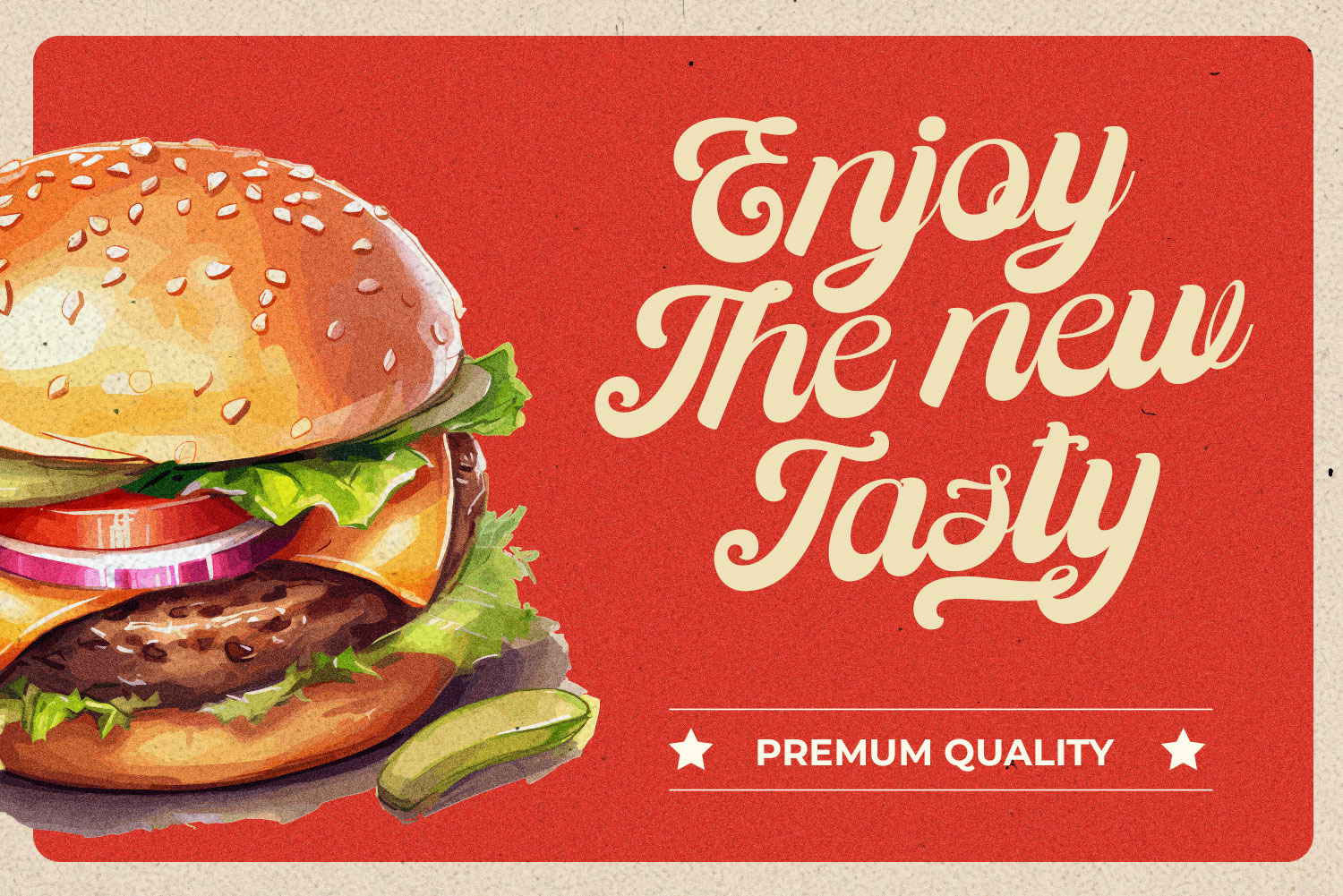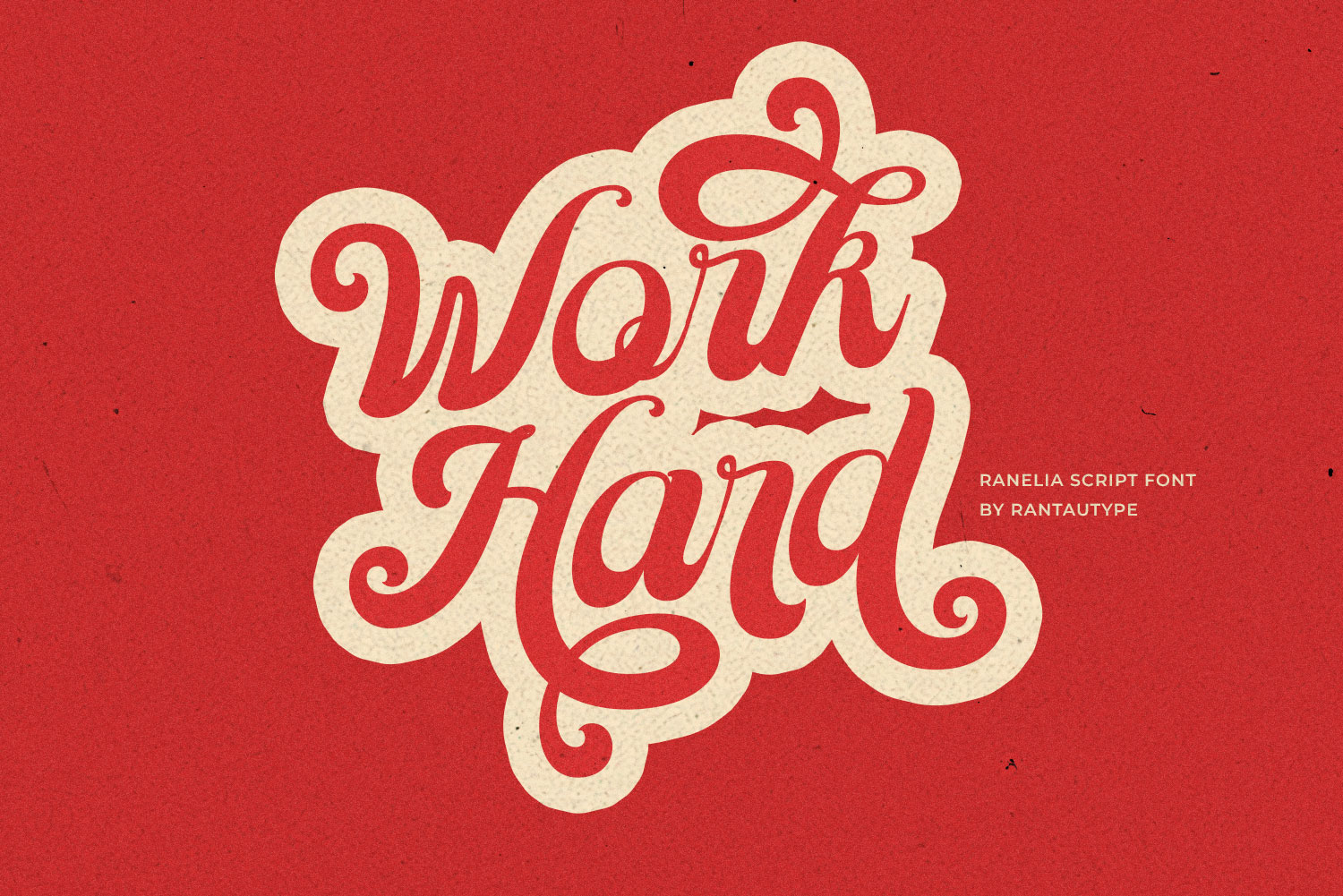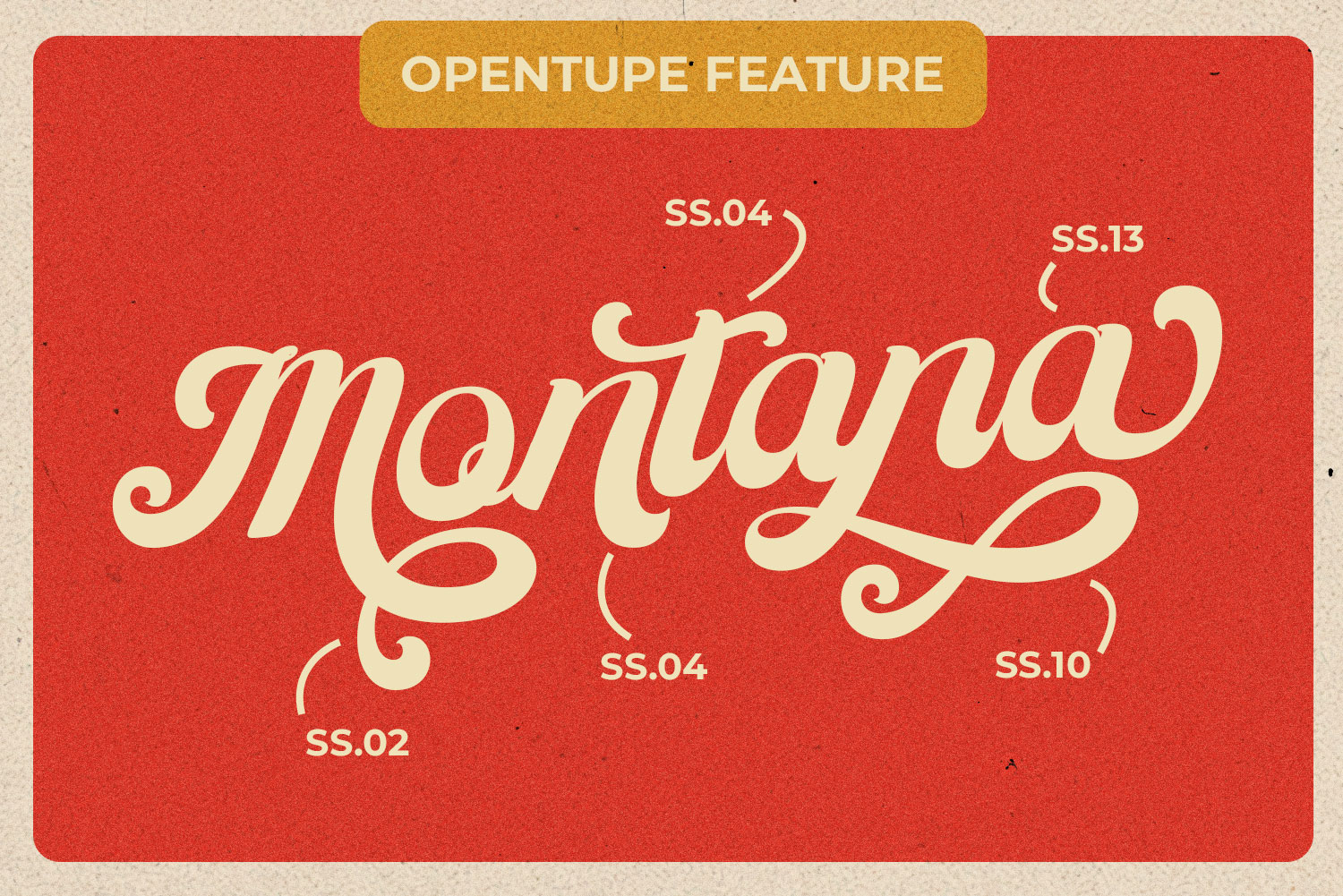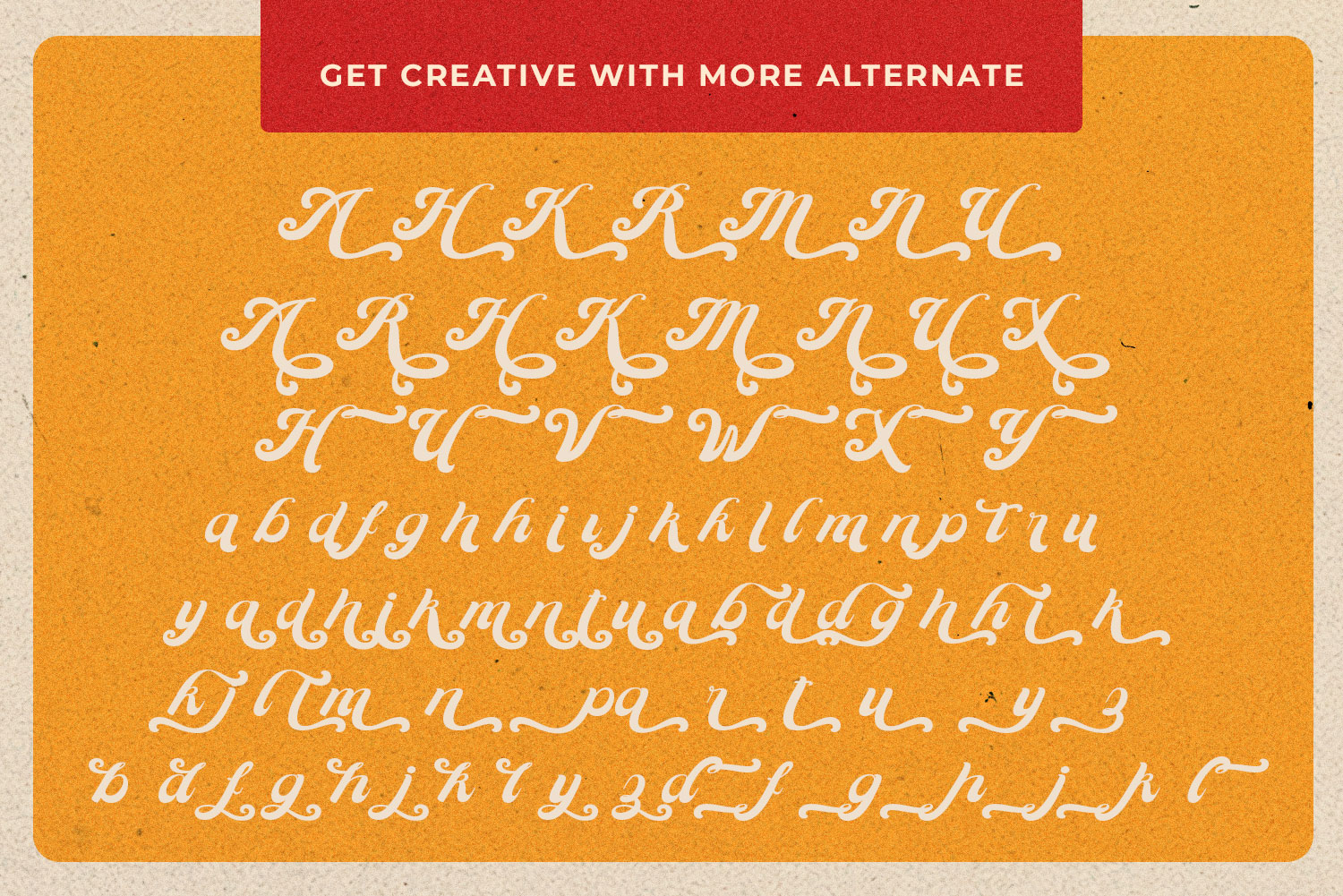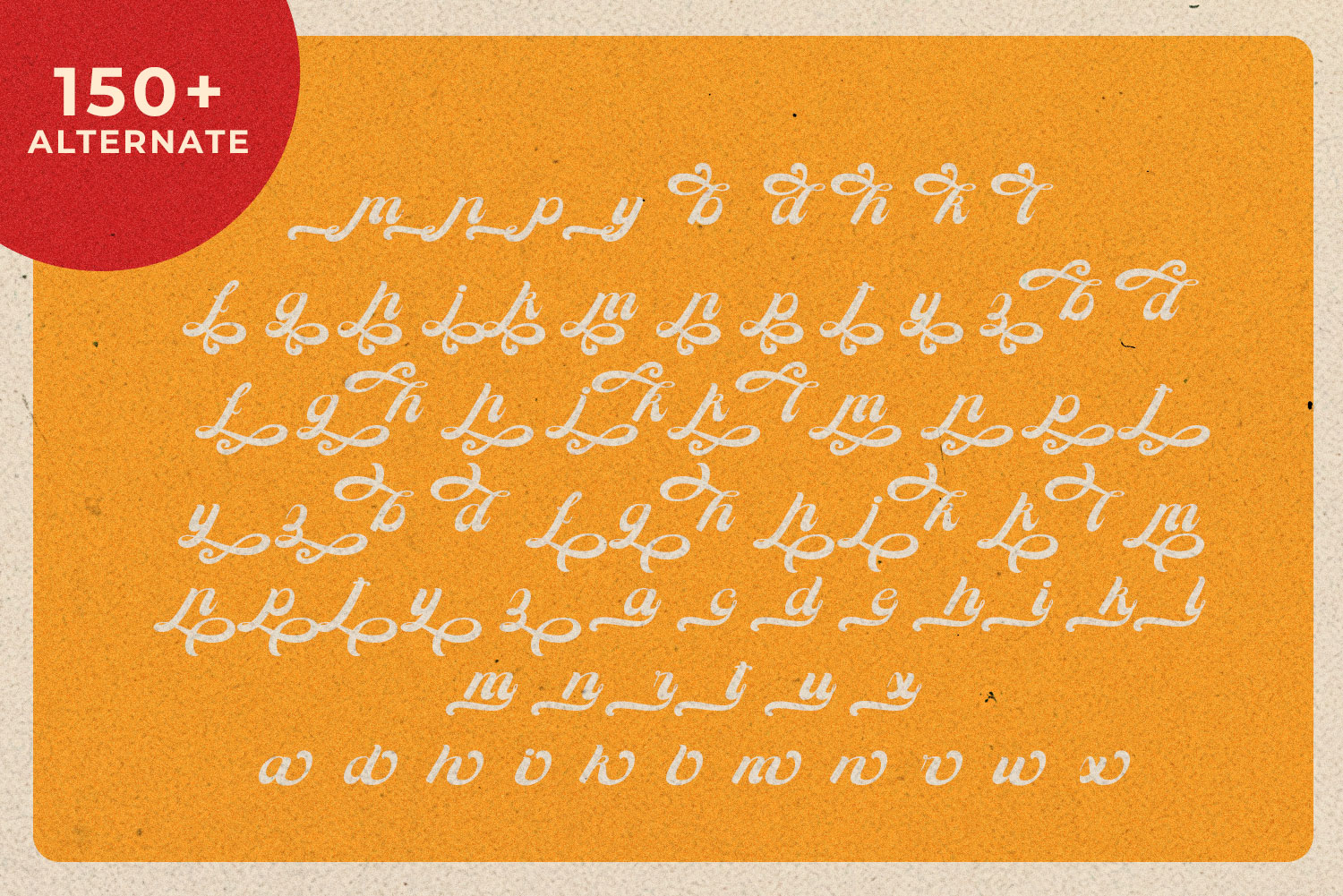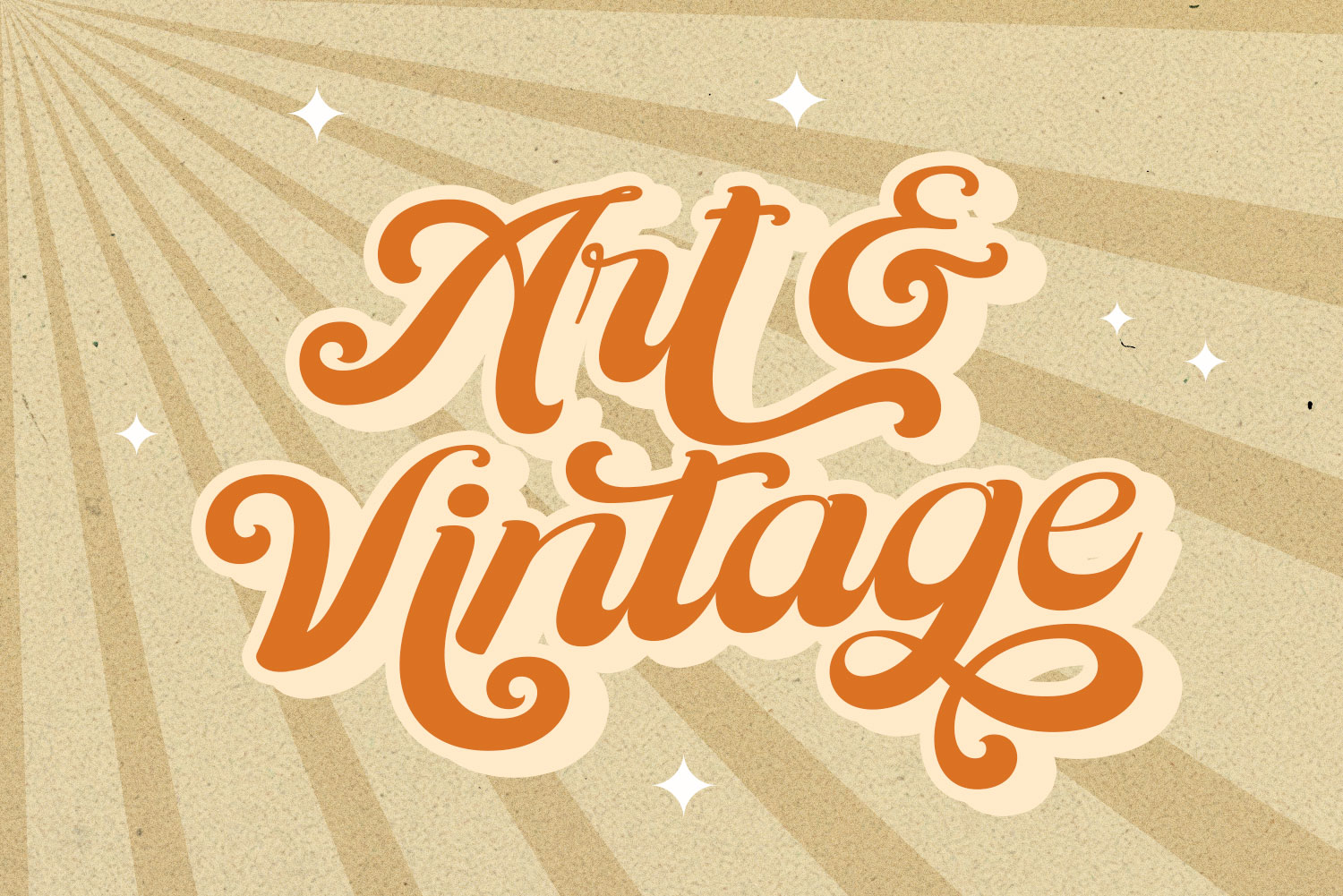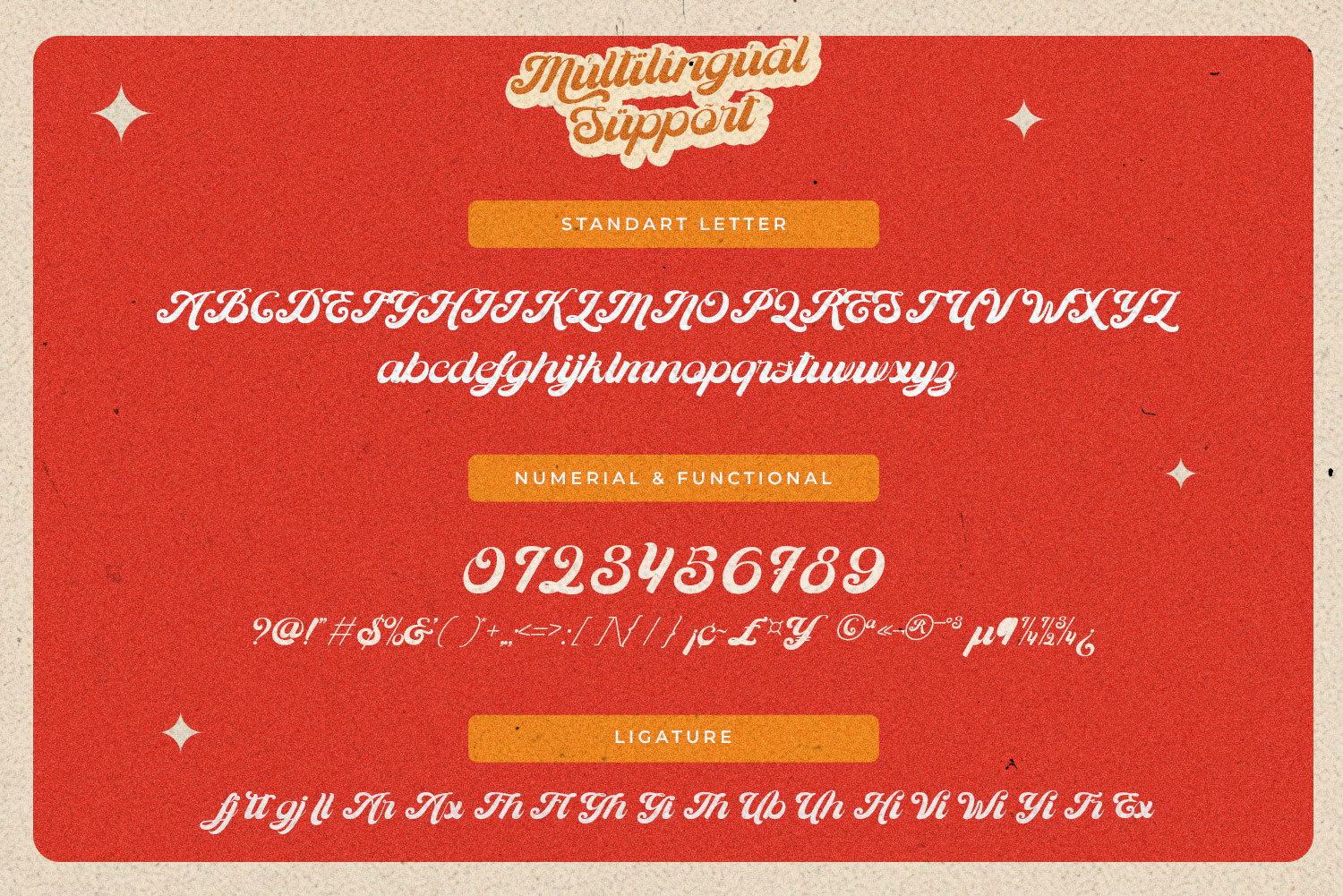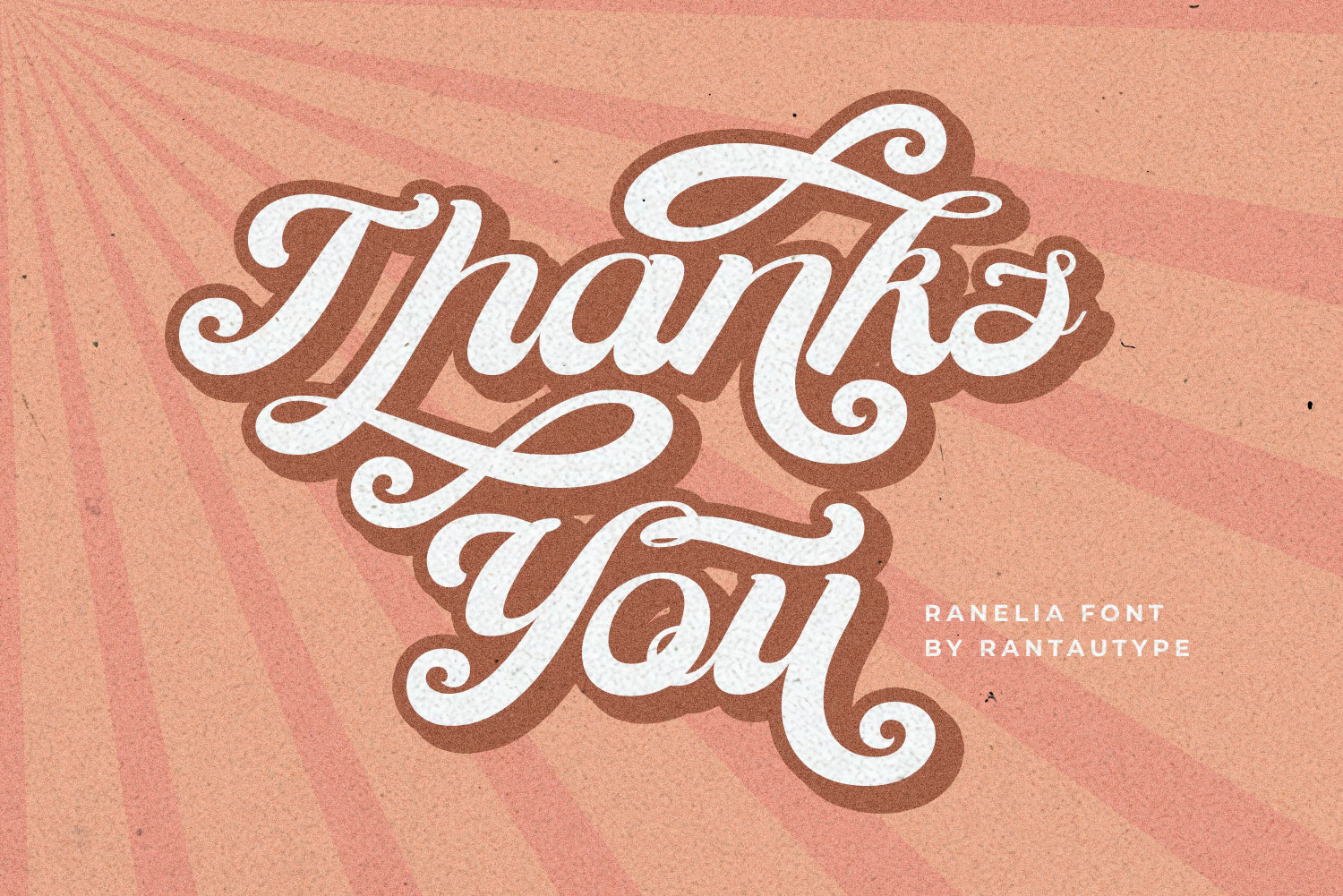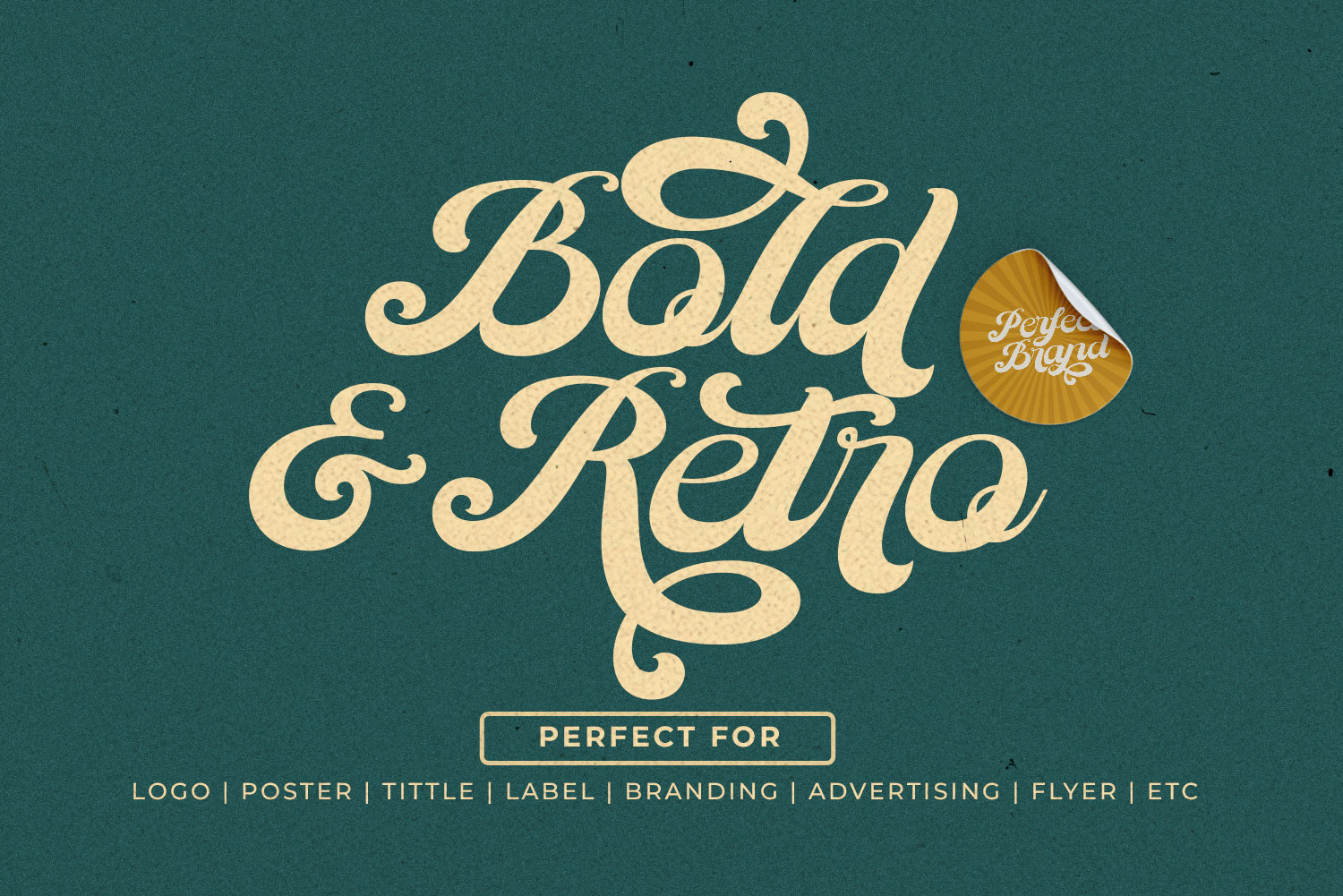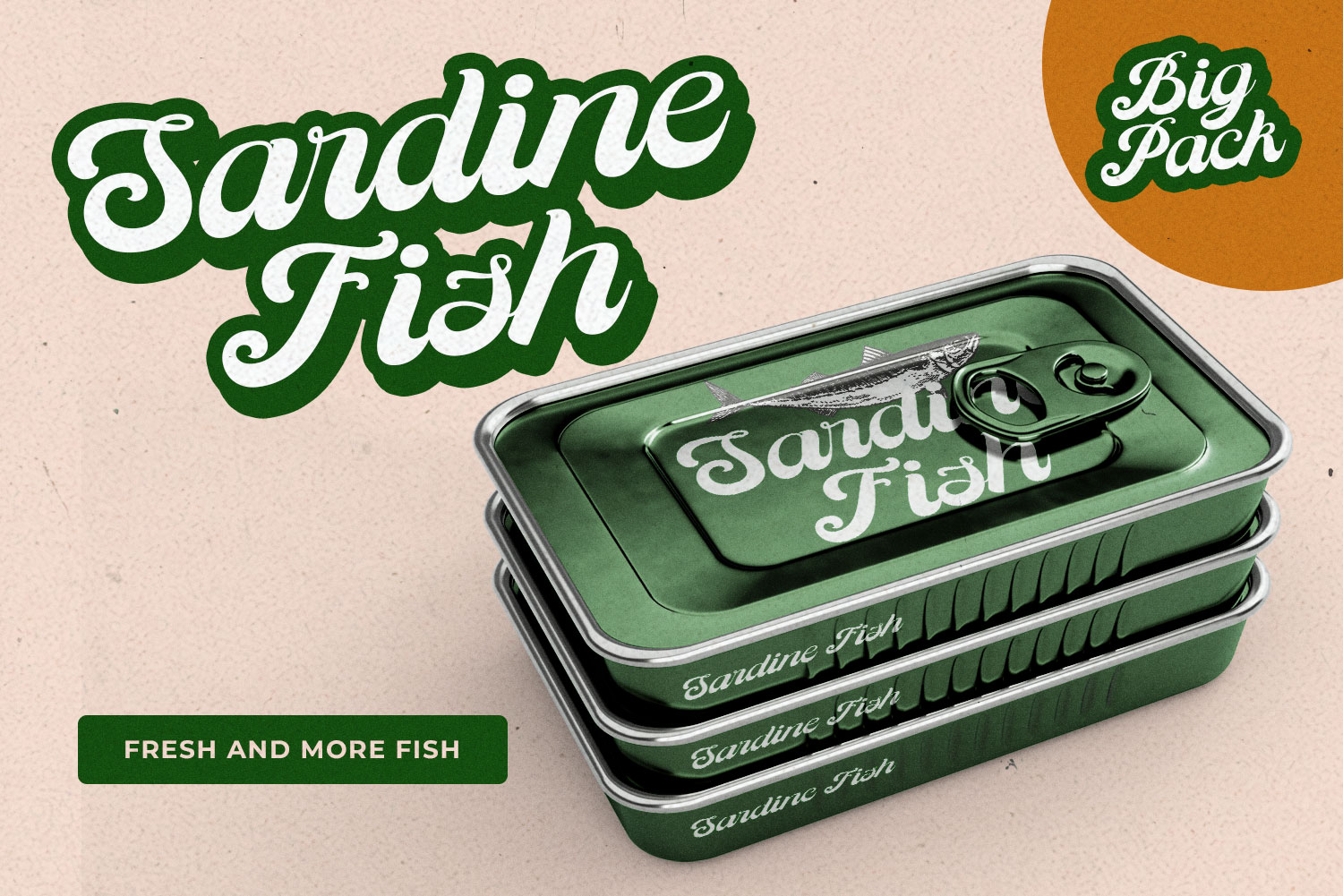
Ranelia A Bold Retro Font
Ranelia is beautiful typographic harmony for diversity. Inspire 60s feel will bring you back to nostalgic vibes, This font can be interpreted professional and we keep this font looks retro, readable, stylish, catchy and easy to use. Ranelia come with ligature, alternate and multilingual support.
Ranelia is a beautiful choice for any creative endeavor, chic, lifestyle design such as logos, title, watermark on photography, cover, branding, display and magazine, wedding event, quotes, album cover, business card, corporate, business project and many other design project. Ranelia here to make your work to high level!!!